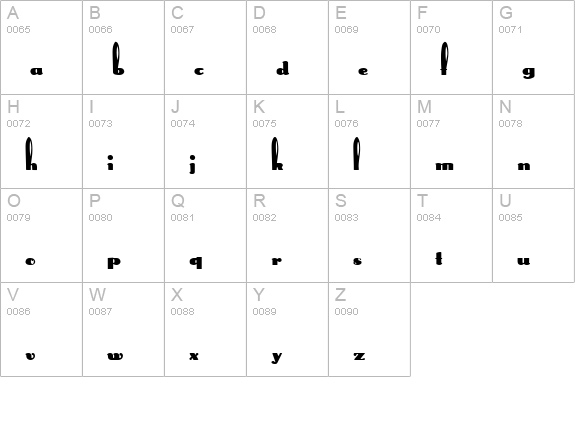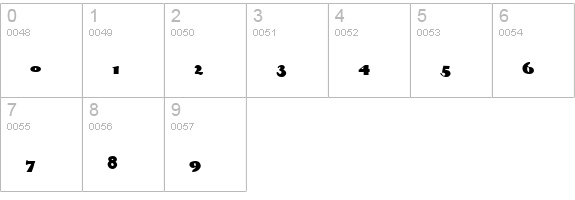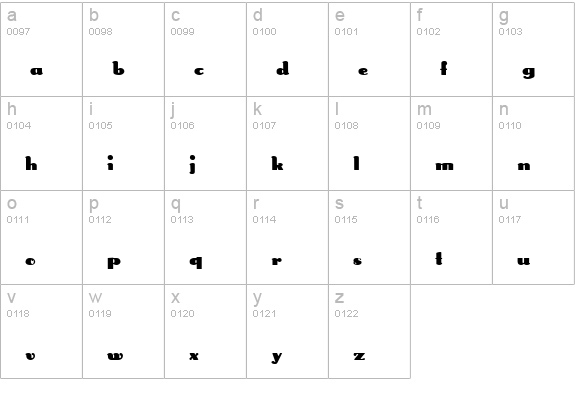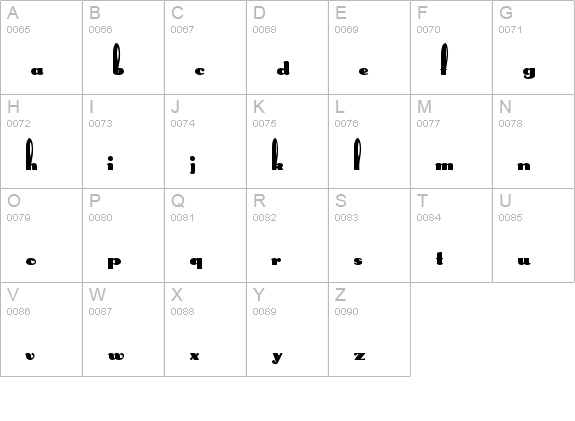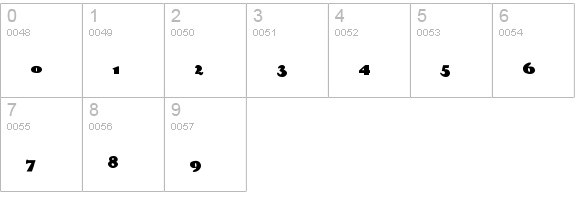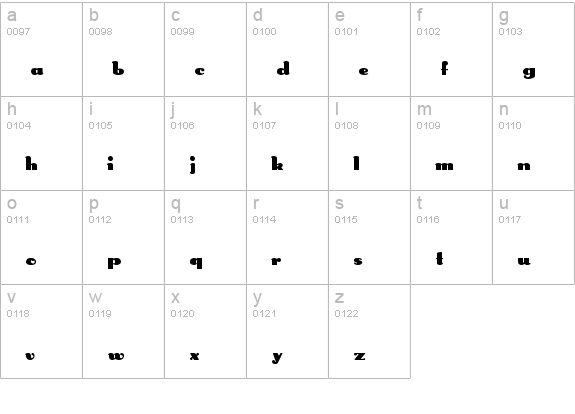
Rabbit Regular Font Details
Rabbit Regular is the standard, neutral variant in the Rabbit typeface family \xE2\x80\x94 well suited to general body text, paragraphs, and standard typographic work.
Rabbit Regular font is a charming and versatile typeface that will add a touch of whimsy and elegance to any design project. With its delicate curves and playful details, this font is perfect for creating eye-catching logos, headers, and titles. The Rabbit Regular font features a well-balanced combination of clean lines and graceful strokes, giving it a unique and sophisticated look. Its slightly rounded edges give it a friendly and approachable feel, making it suitable for a wide range of applications. What sets Rabbit Regular font apart is that it is not only aesthetically pleasing but also freely available to download at FontsMarket.com. This means that designers, creatives, and enthusiasts alike can enjoy the versatility and beauty of this font without any cost. Whether you are working on a branding project, a website design, or even a personal invitation, Rabbit Regular font is sure to captivate your audience and leave a lasting impression. Its legibility and readability make it a great choice for both digital and print designs. So why wait? Download Rabbit Regular font today from FontsMarket.com and unlock the creative possibilities that this font has to offer. With its free availability and stunning design, Rabbit Regular font is a must-have addition to any designer's toolkit.